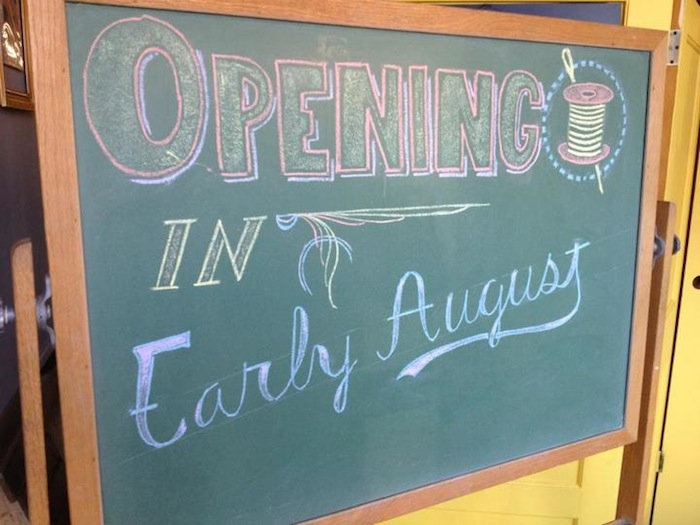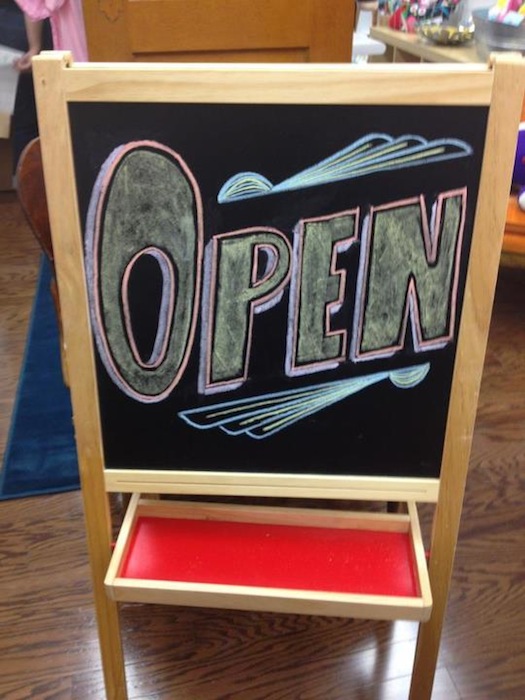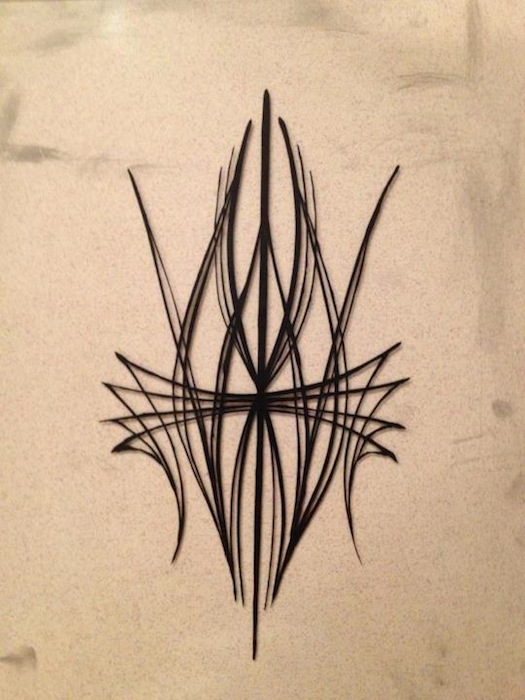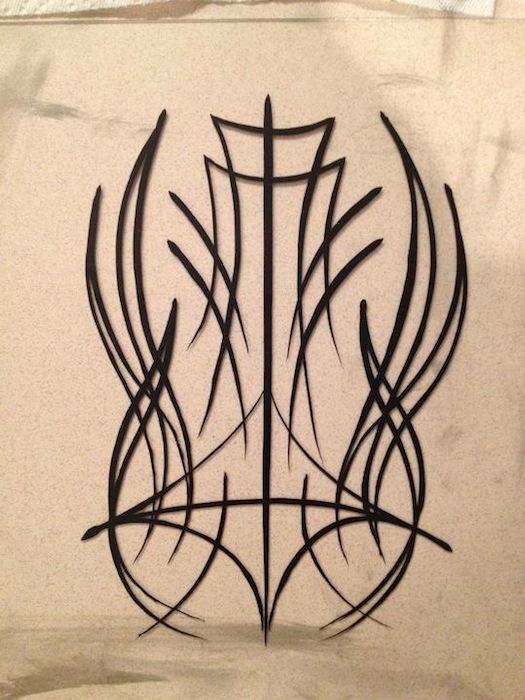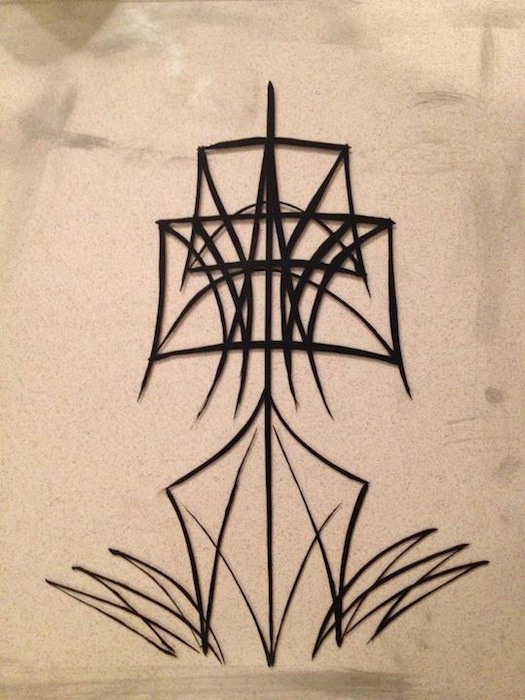
I guess I'll tell you a little about myself. By day, I pay the bills as the technical arts director for a large church in my community. That makes me the all-around 'creative' guy as I attempt to build and paint sets, do lighting design, sound engineering, and some video production. My wife also runs a hand-made boutique where we sell goods from local artists and crafters as well as teach workshops and host craft fests.
I've always noticed and appreciated hand made signs. As my wife and I setup our shop, I really got into making chalkboard signs for various announcements and events. I've also been wrenching on motorcycles and wanting to do some hand painted elements there as well. I went and got myself a Mack series 10 striper and a pint of black 1-shot and have been practicing line work with that. I have some rudimentary painting skills, but sign writing seems to be a whole different world: different brushes, techniques, and paints than those I'm familiar with. I'm full of questions, but I'm hoping you'll field just a few to get me started.
• What are the bare essential brush types and sizes to get me started? I can't find them locally and it's hard get an idea of what's what online. I'd like to be able to start painting signs similar to this in terms of size and stye.
The more I read, the more I hear that new 1-Shot is garbage. What are you using? I've been happy with my 1-Shot black so far, but I hear some of the colors are too thin or take forever to dry. I'll end up ordering online, as local availability isn't really a factor.
With enamels can I just mix basic RGB+BW to get new colors for now, or does this mess with the their formulas?
Anybody know a traditional sign writer in my neck of the woods (Fargo, ND - USA)? I'm not looking for a new career, but I'd love to have a beer and pick the brain of an experienced letterhead.
I've attached a few of my doodles and I'll post more as acquire new skills and materials.
Anchors Away
Angry Birds
light and tight
Sidewalk Sign
Chalkboard Announcement
Probably the most common one used for singal stroke lettering
would be the quill, I prefer the grey quills over the brown quills,
but that's just a matter of personal preference. There are also
liners and stripers for various other work. They also have a large
selection of brushes for waterbased media. They give a brief
description of their use.
As for paint, OneShot is still the most popular. Mixing OneShot
colors is questionable in trying to achieve a nice clean color.
You're best to get the set of 1/4 pint cans, then you'll have a
wide variety of colors to choose from.
Probably the most common one used for singal stroke lettering
would be the quill, I prefer the grey quills over the brown quills,
but that's just a matter of personal preference. There are also
liners and stripers for various other work. They also have a large
selection of brushes for waterbased media. They give a brief
description of their use.
Wrights of Lymm also has a large selection of signwriting brushes
Letterhead Sign Supply is another good source of supplies.
As for paint, OneShot is still the most popular. Mixing OneShot
colors is questionable in trying to achieve a nice clean color.
You're best to get the set of 1/4 pint cans, then you'll have a
wide variety of colors to choose from.
As for hands on instruction, try attending a Letterhead Meet.
Letterville keeps a running list of the Upcoming Meets
Also, Pierre Tardif has offered some handlettering classes in the past,
The Best Thing is to see someone else work, and feel the drag of properly mixed paint, and look at how they hold the brush (and mahlstick, if any), and and and. I think Bill Stewart's "Signwork" [http://www.alibris.com/booksearch?qwork ... RHS-_-p1-0] is the best how-to book available, since it was written as a textbook (a British textbook, so some of the terms are wonky to us Yanks). But watching a Real Person is way the best, and a Letterhead meet is where you go to see so-called Real Persons with brushes in their hands.